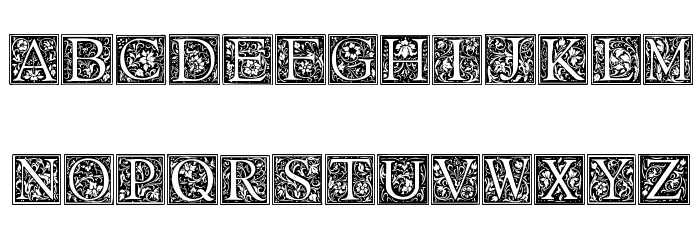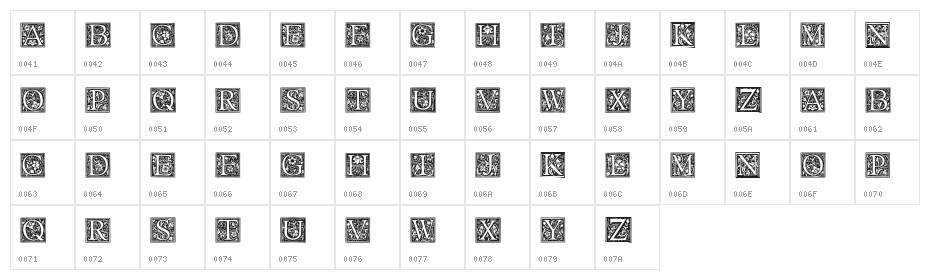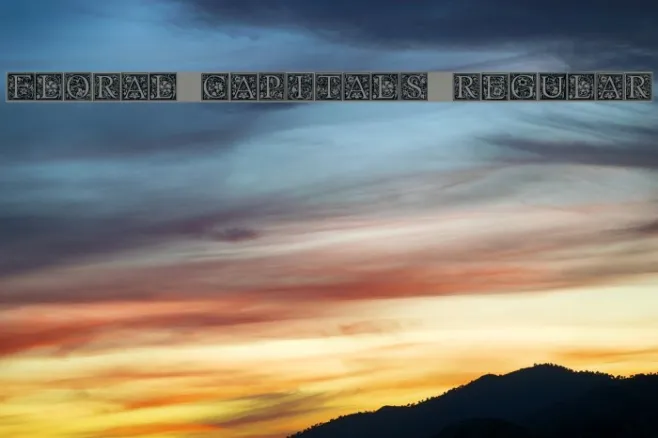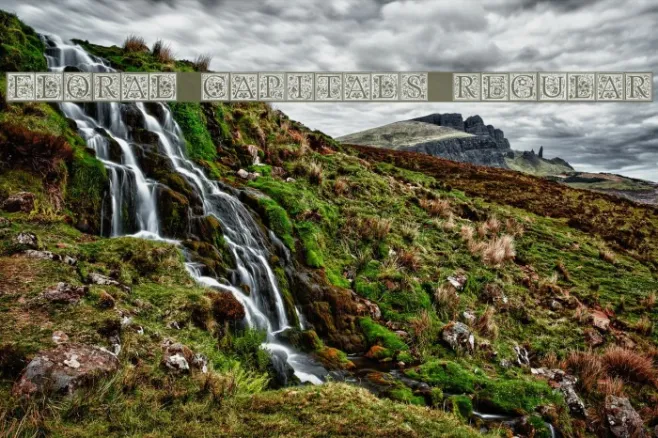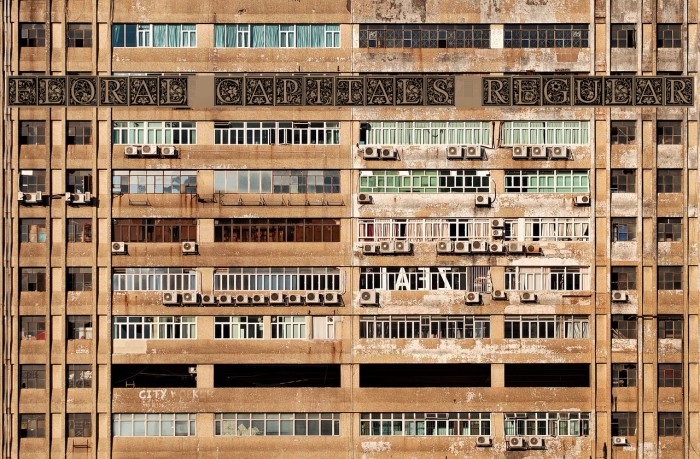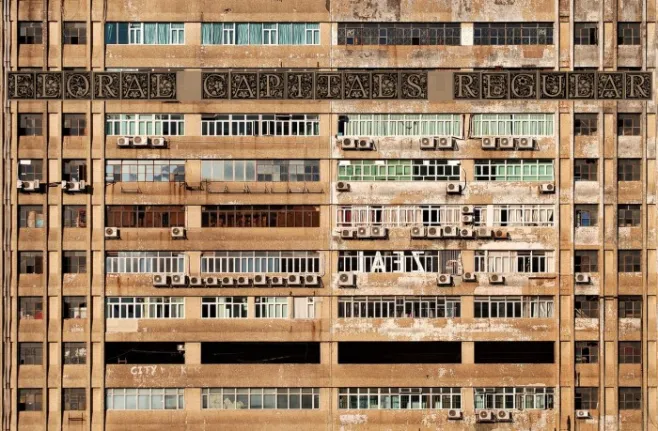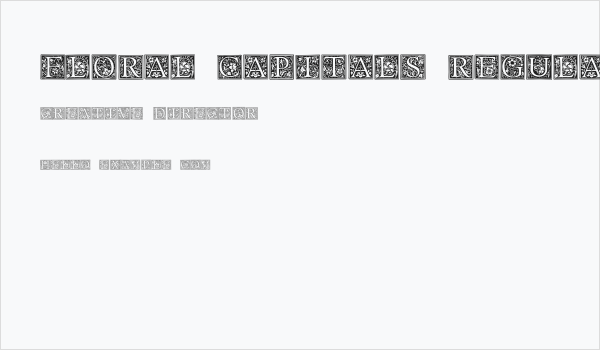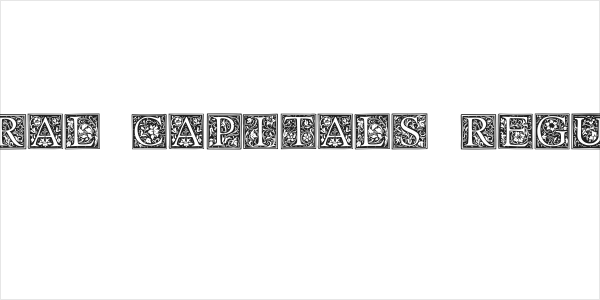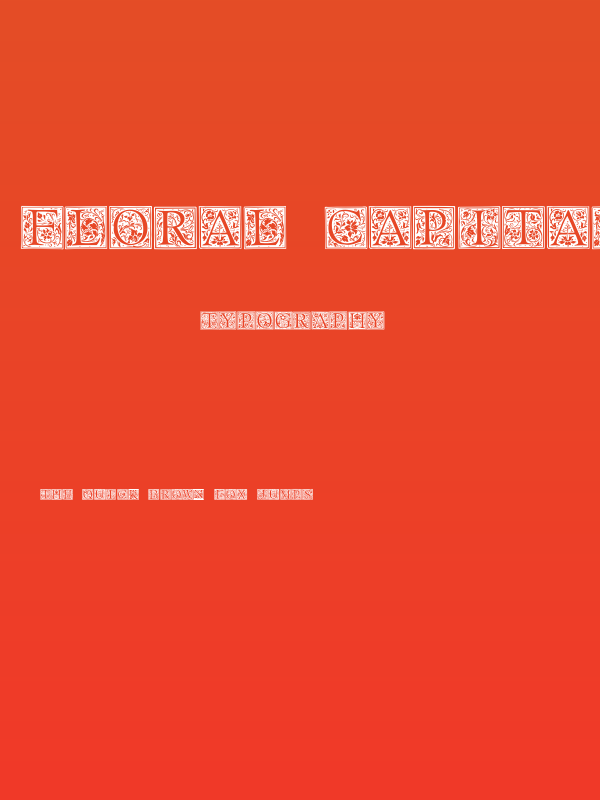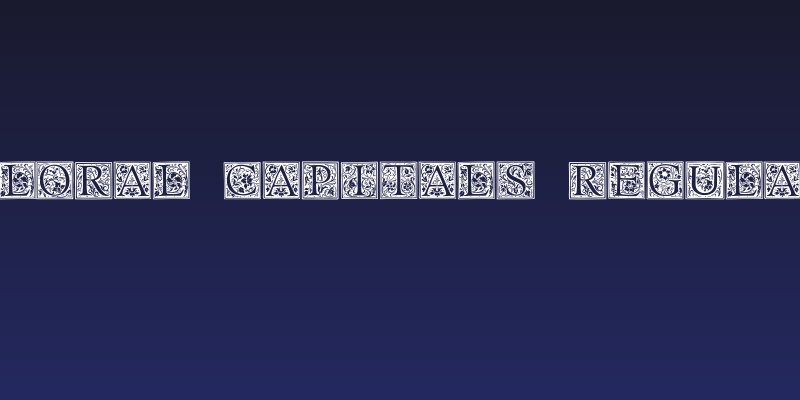
Floral Capitals Regular Font
Floral Capitals Regular Description
This font features ornate, decorative capital letters, each enclosed within a square border. The intricate floral designs within each letter give it a vintage and artistic feel, reminiscent of illuminated manuscripts. The detailed embellishments create a sense of elegance and sophistication, making it ideal for projects that require a touch of classic beauty. The uniformity in the size and style of each letter ensures a cohesive and harmonious appearance, while the bold outlines enhance readability despite the intricate details.
| Proposed Projects | Ideal for wedding invitations, book covers, greeting cards, and decorative posters. |